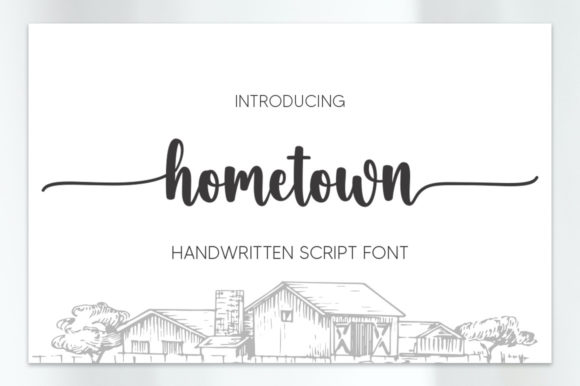
Introducing Hometown Font, the Exuberant Script Font That Captures the Essence of Home, Hearth, and Heartfelt Charm.
Step into a world where letters dance gracefully, intertwining like threads of a heartwarming tale. Hometown Font is not just a font; it's an ode to the cherished memories, the laughter, and the love that fills the four walls we call home. This enchanting script font, crafted with meticulous care by Graphix Line Studio, will transform your creative projects into masterpieces adorned with the elegance of a bygone era.
Hometown Font is more than just a collection of characters; it's a gateway to unlocking your imagination. Its playful, charismatic style will lend an air of sophistication to your designs, whether it's a personalized home nameplate, an alluring wedding invitation, or a captivating social media post. Each letter seems to possess a personality of its own, dancing along the baseline with a rhythm that will captivate your audience.
With its PUA encoding, Hometown Font grants you effortless access to a treasure trove of glyphs and swashes, empowering you to unleash your creativity and add intricate details that elevate your designs to new heights. Experiment with the boundless possibilities, creating monograms that exude timeless charm, logos that radiate warmth and authenticity, or handwritten notes that carry the weight of your deepest emotions.
As you immerse yourself in the world of Hometown Font, you'll discover a symphony of emotions woven into its curves. It's a font that evokes nostalgia, conjuring images of cozy evenings spent with loved ones, the scent of freshly baked cookies wafting through the air, and the comforting embrace of a familiar place.
With Hometown Font, you'll have the power to transform the ordinary into the extraordinary. It's the perfect choice for those seeking a font that speaks to the heart, that captures the essence of home, and that leaves a lasting impression on all who encounter it.